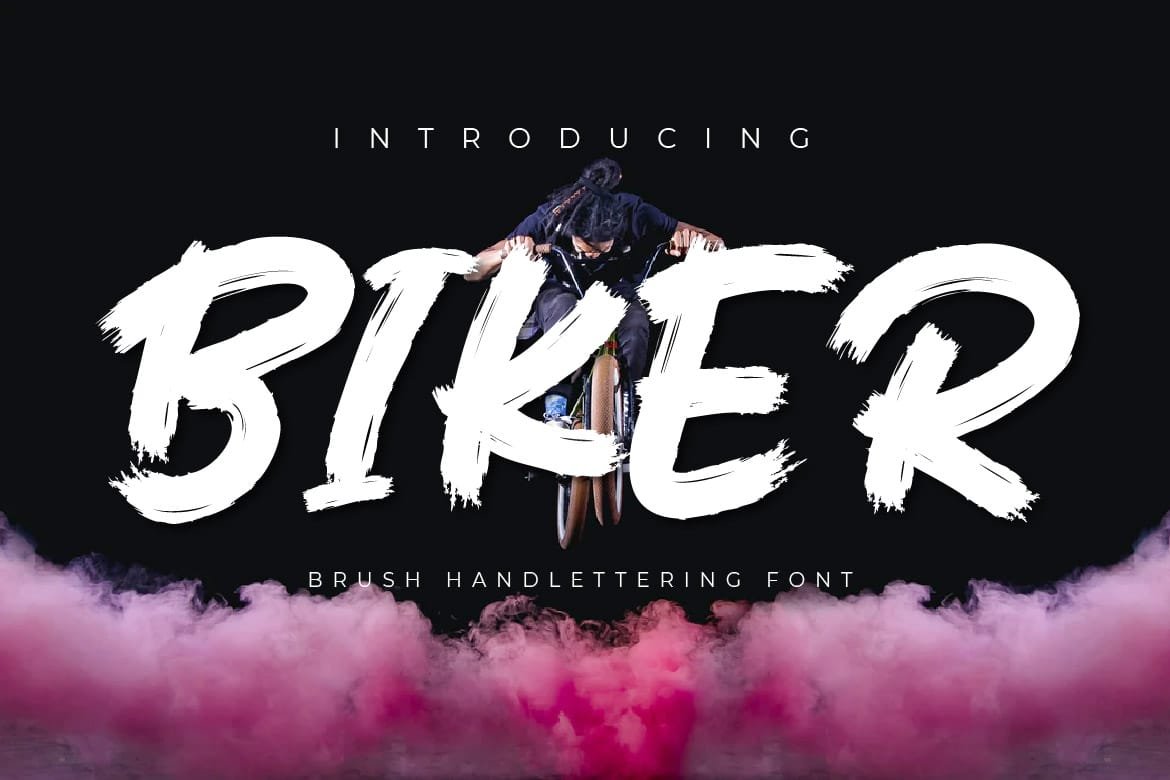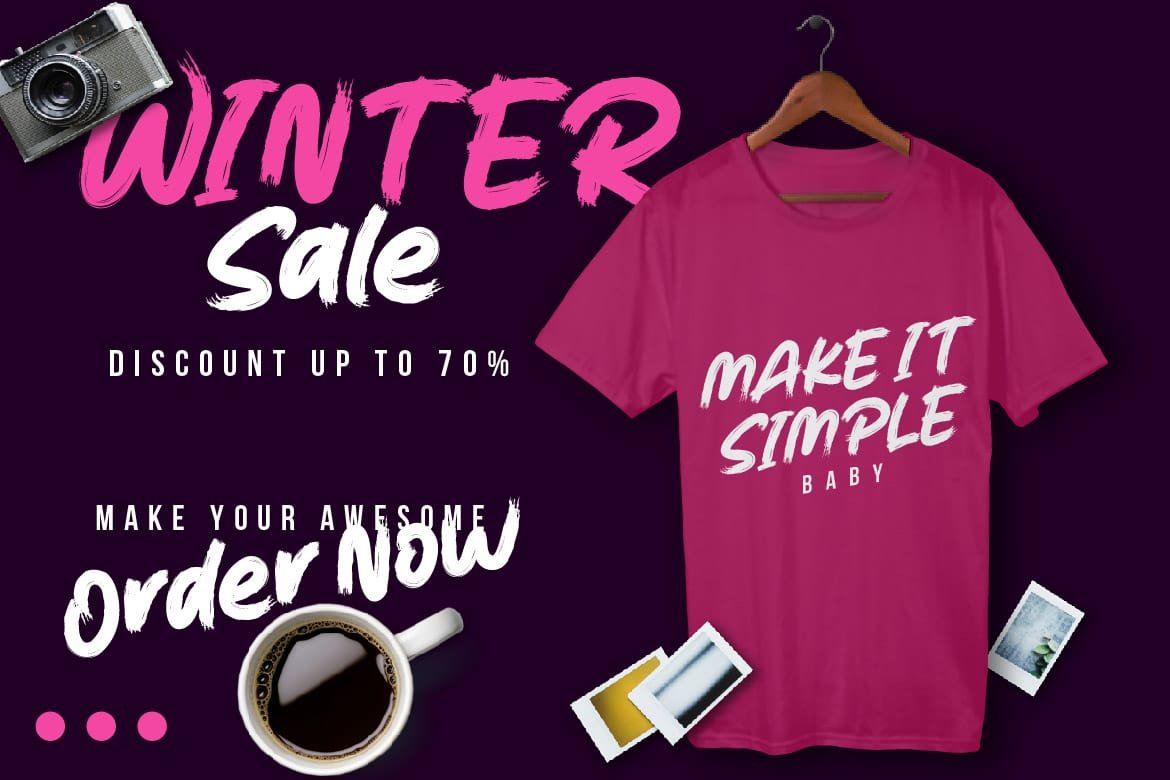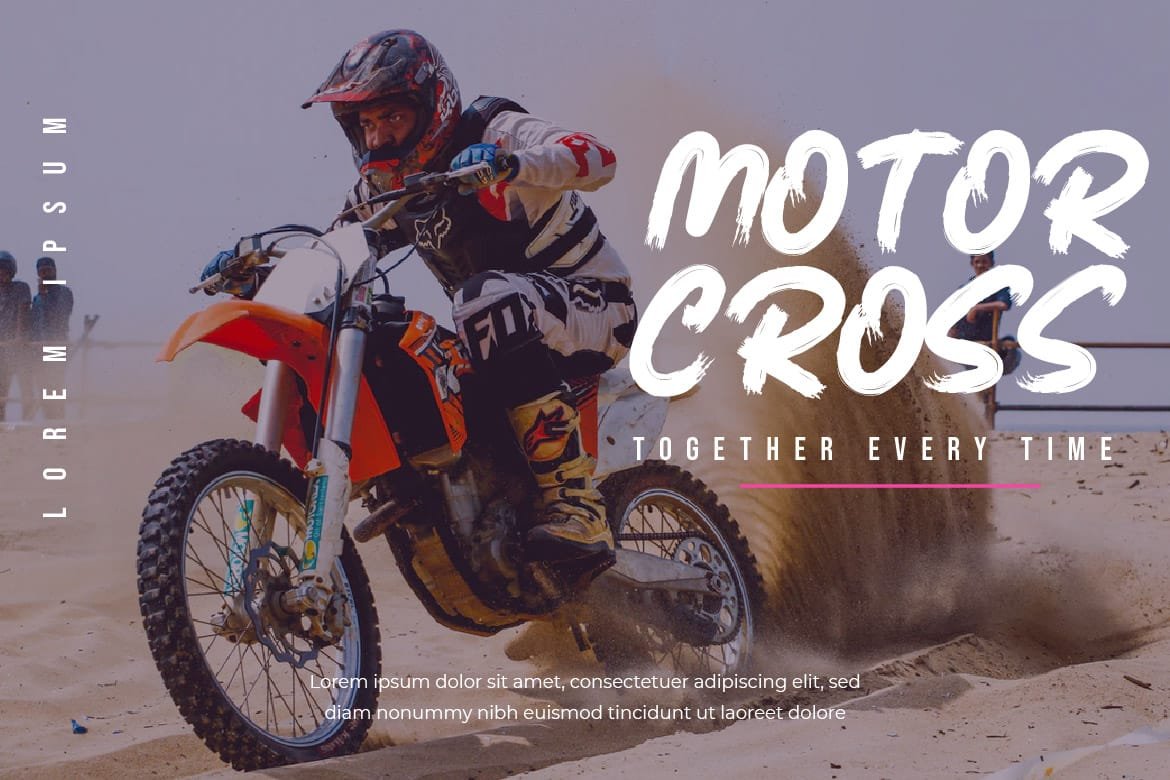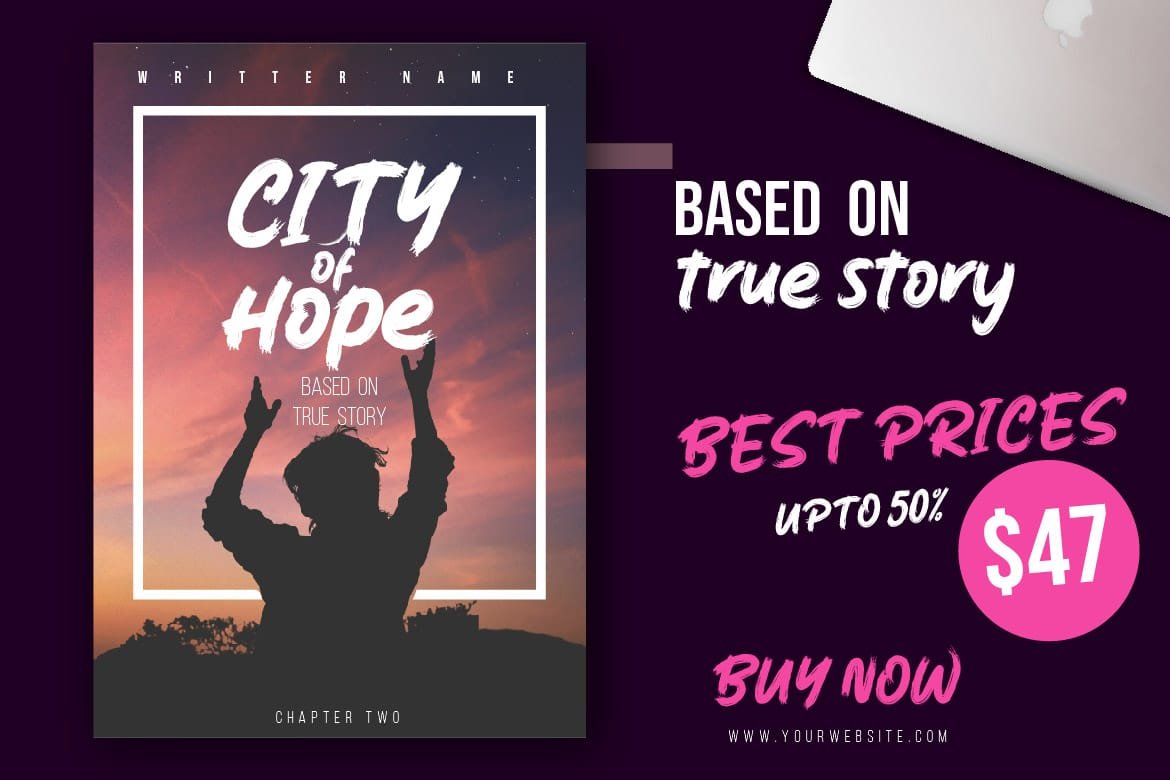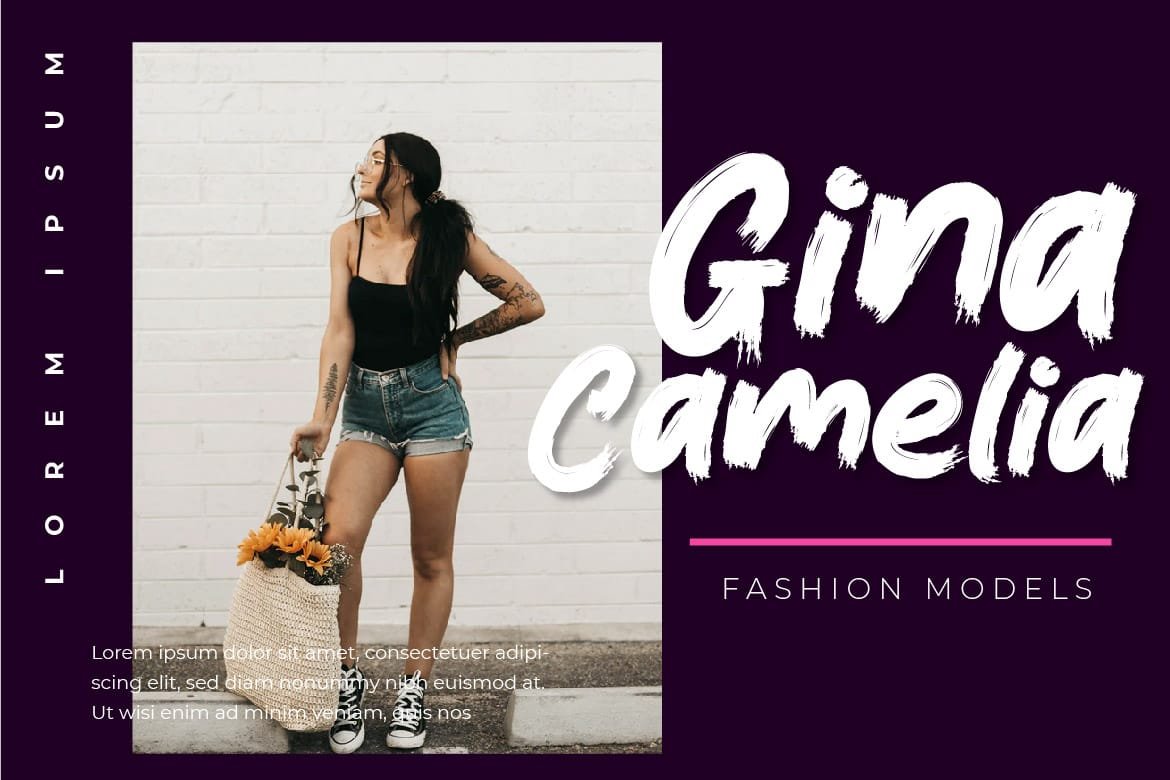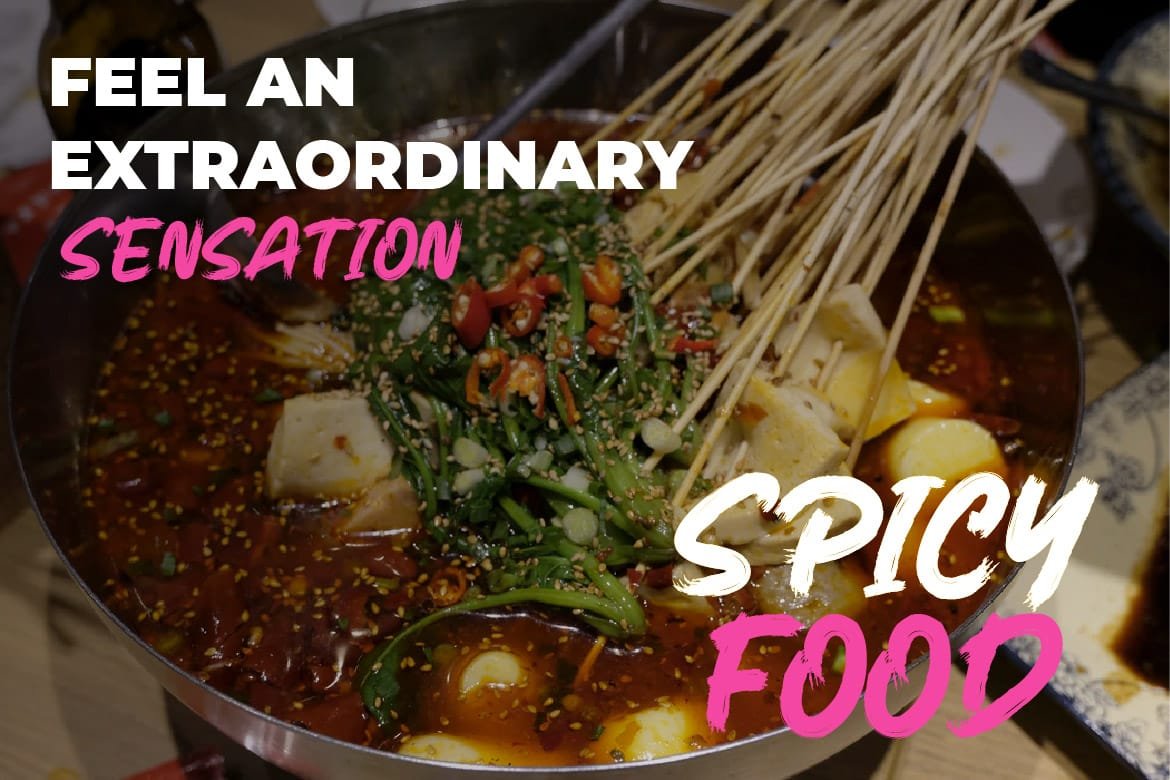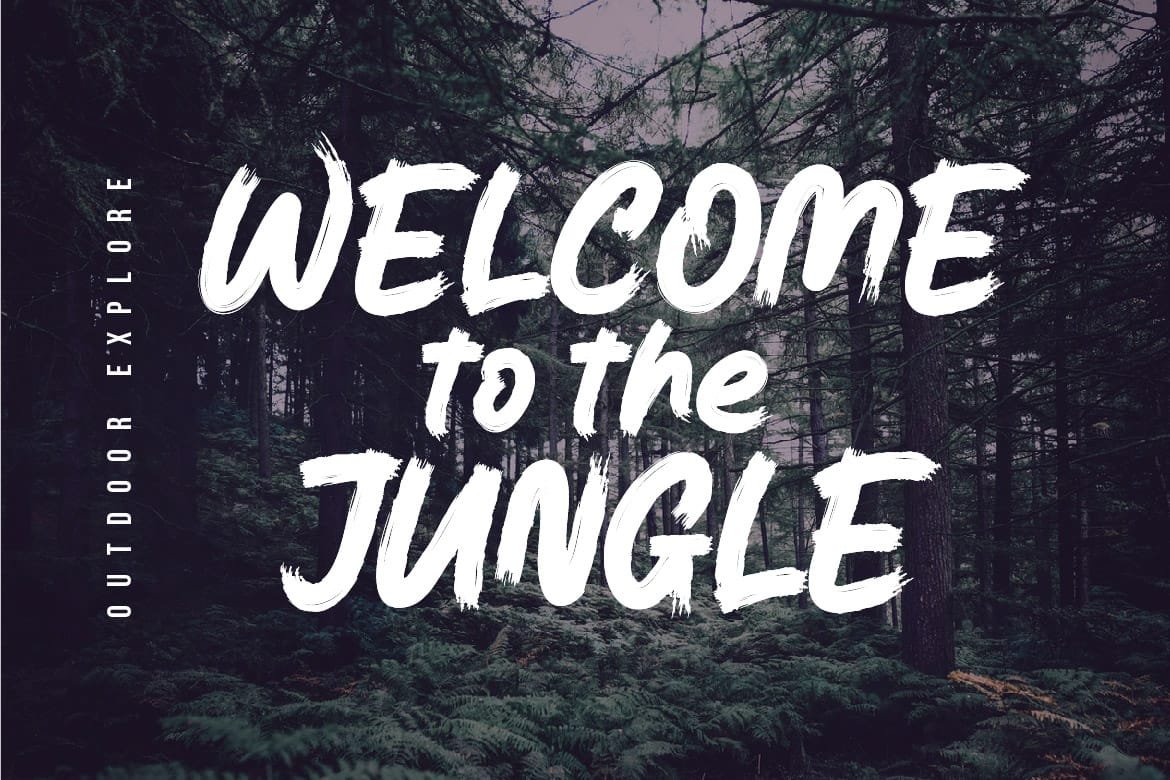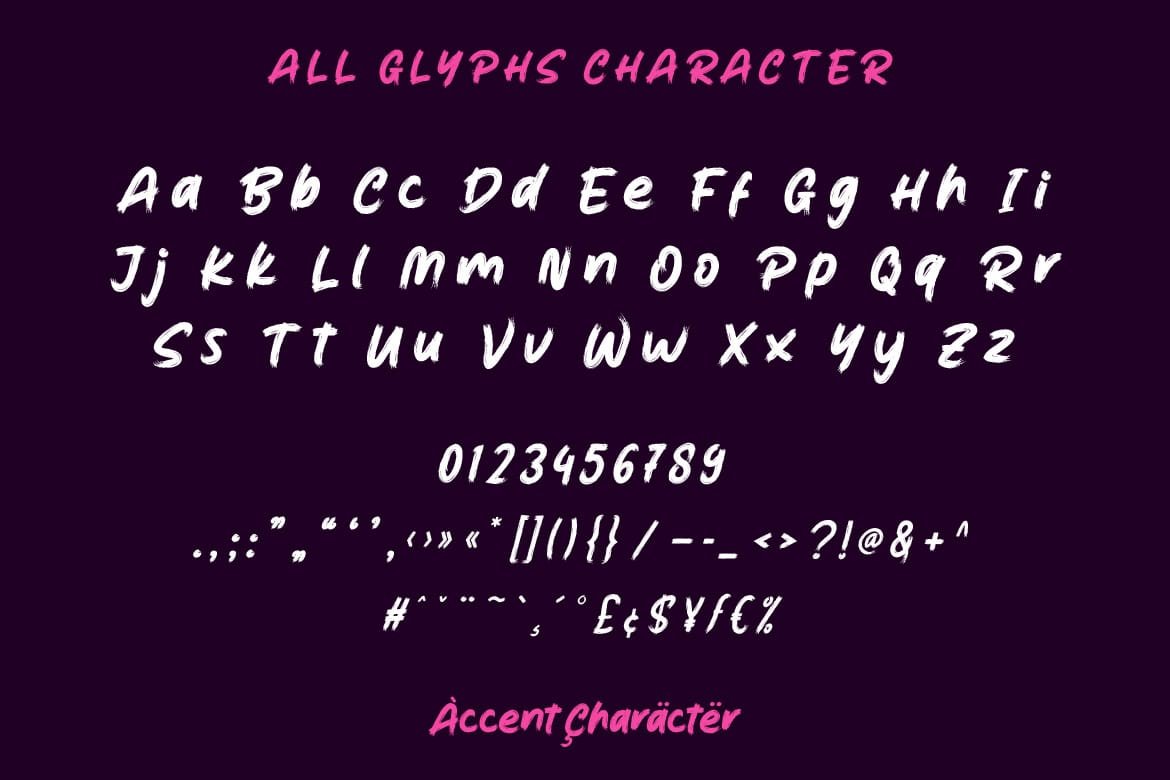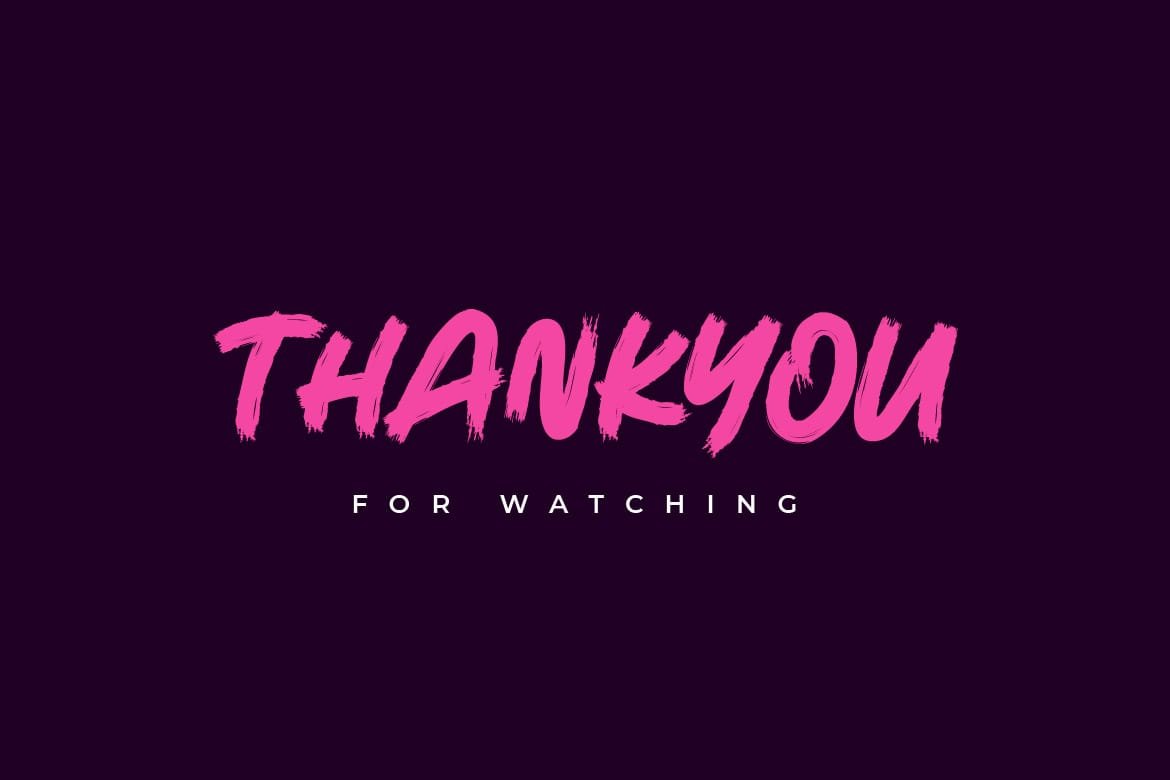
Rev up your designs with Biker – Brush Handwritten Font, the font that screams adventure and freedom! With its rugged strokes and bold design, Biker brings a sense of rebellion and daring to every project. Whether you’re designing badass merchandise for a motorcycle club, creating thrilling event posters, or giving your branding a gritty edge, Biker is your ticket to making a statement. Get ready to embrace your wild side and hit the open road with Biker – the font that refuses to be tamed!